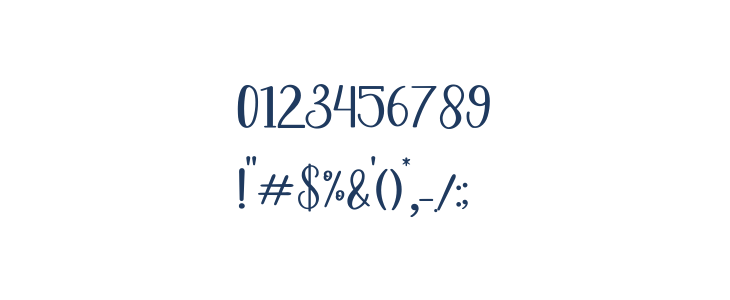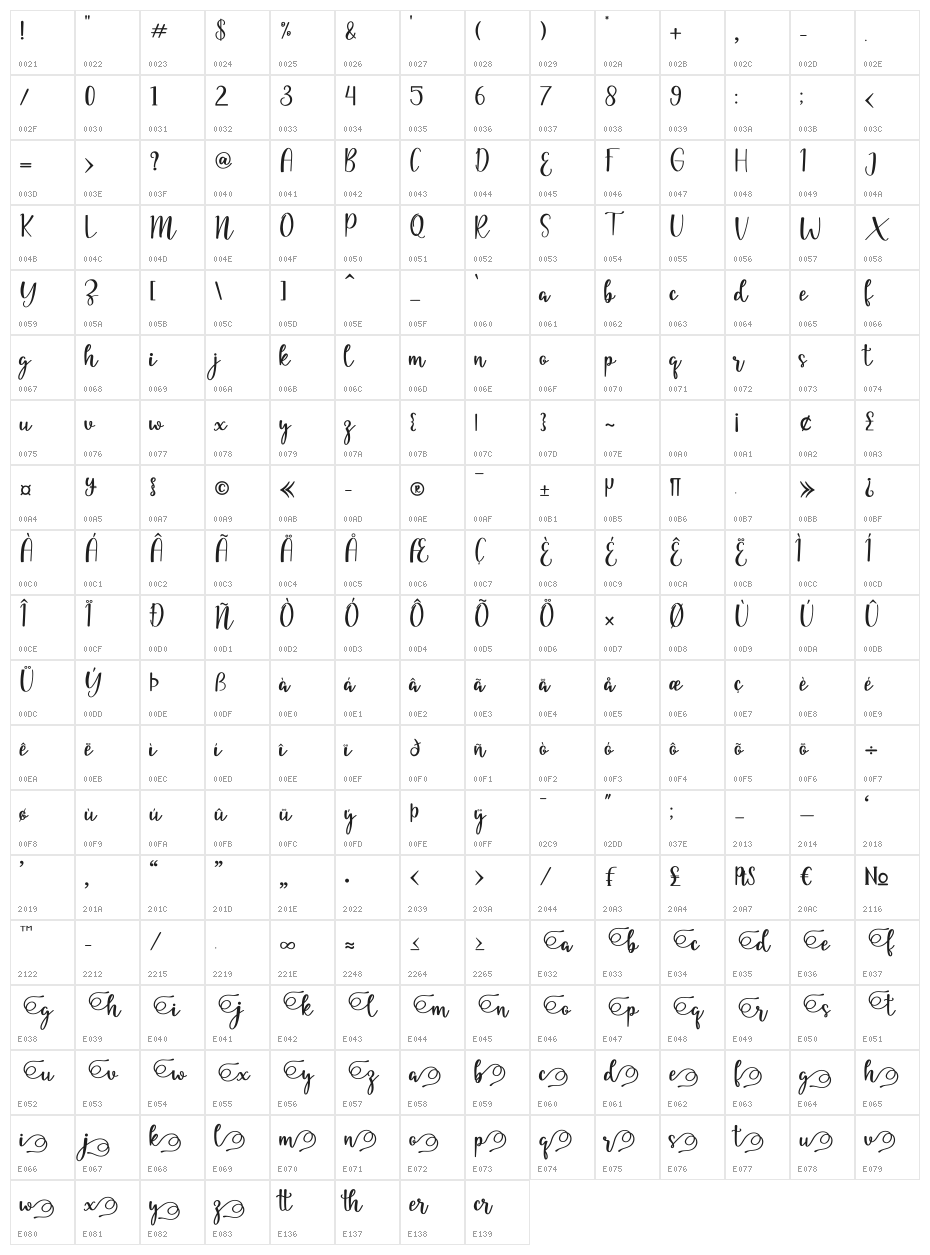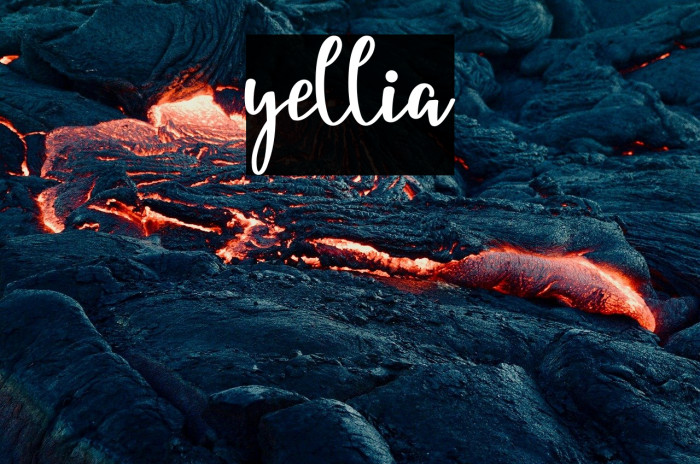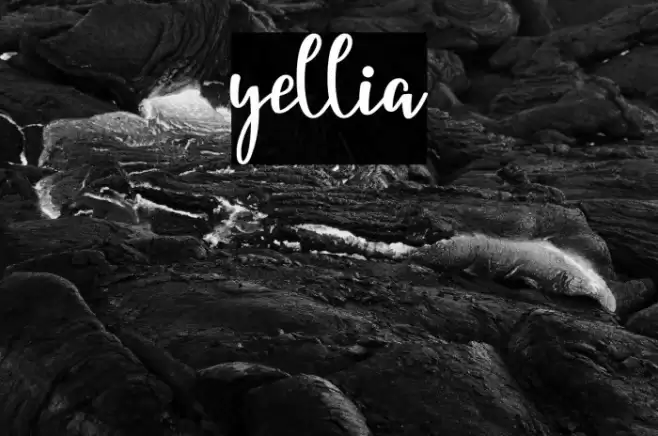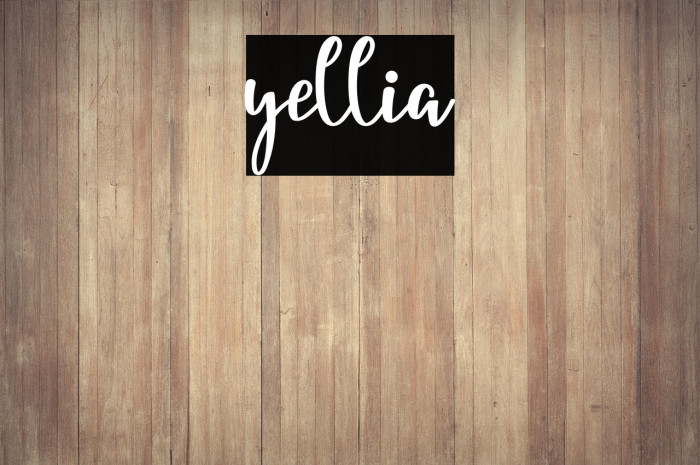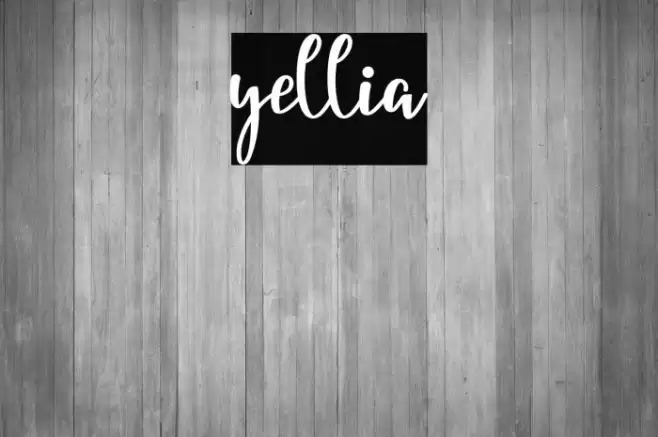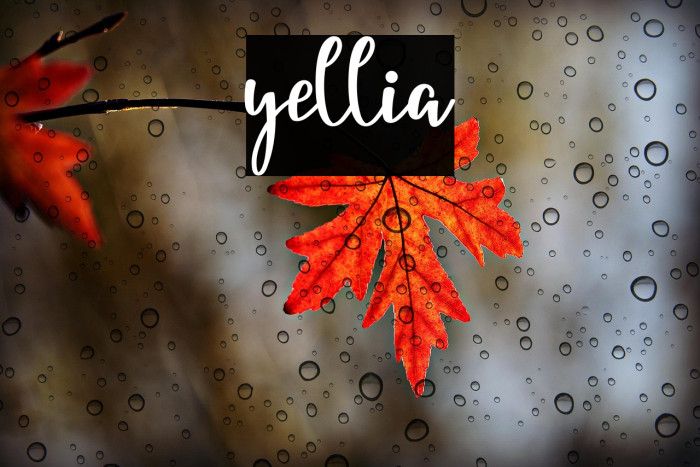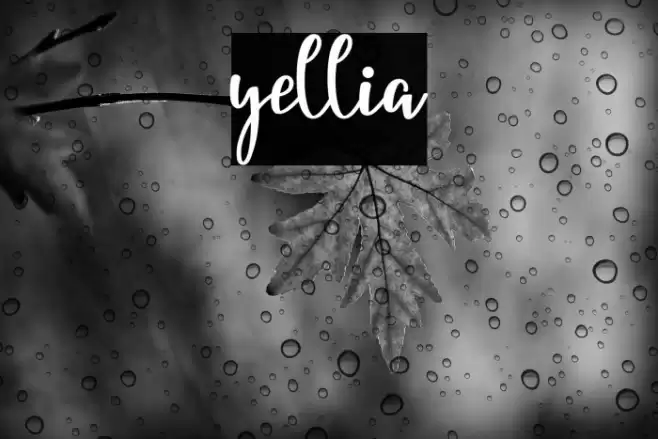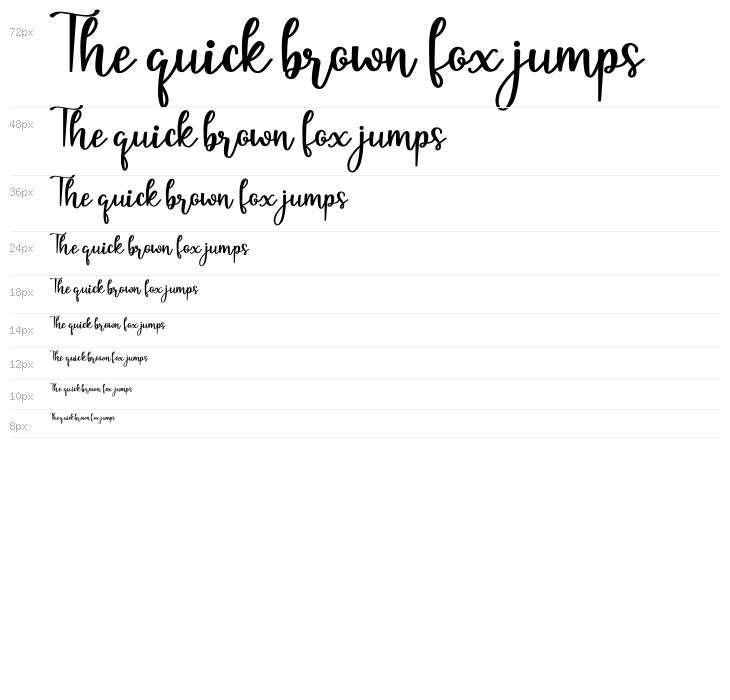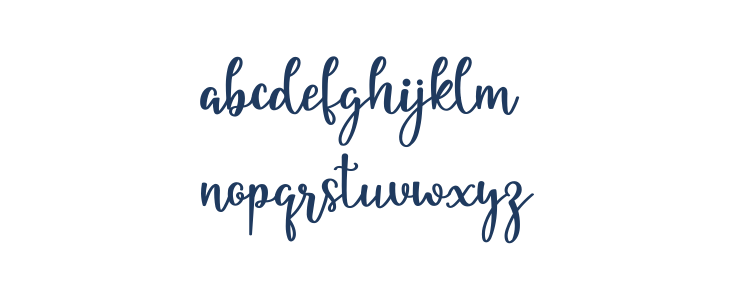
yellia Font
yellia Description
This font features a playful and elegant script style, characterized by its flowing and connected letterforms. The uppercase letters are bold and slightly whimsical, with varying stroke widths that add a dynamic feel. The lowercase letters maintain a consistent flow, enhancing readability while retaining a stylish flair. Numbers and special characters are designed to match the overall aesthetic, with smooth curves and a balanced appearance. This font exudes a sense of creativity and sophistication, making it suitable for a variety of design projects.
| Proposed Projects | Ideal for wedding invitations, greeting cards, branding, and social media graphics. |